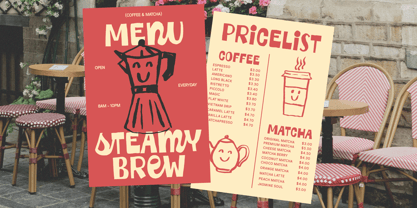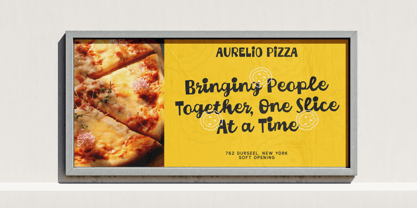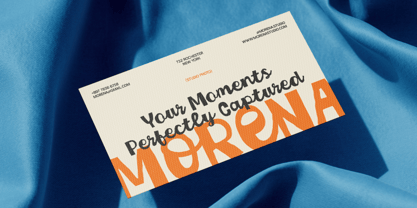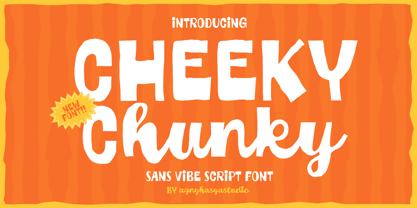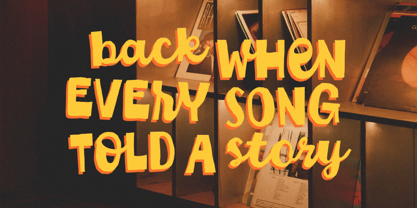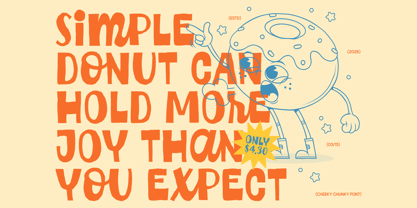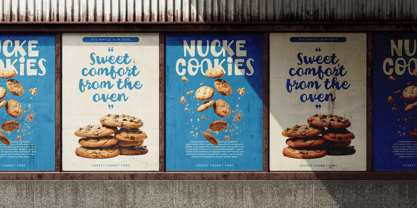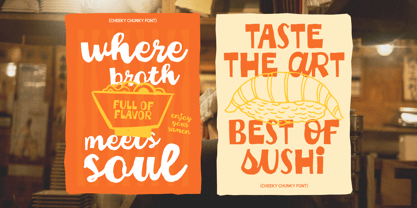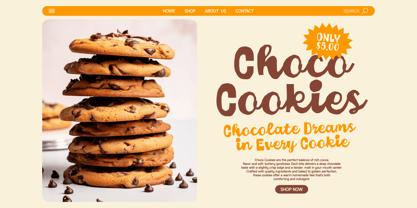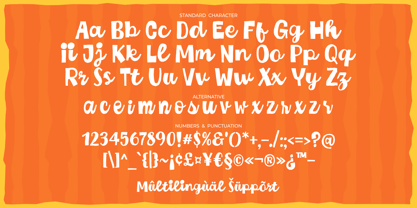
Cheeky Chunky
La famille de polices Cheeky Chunky a été conçue par Firman Maulana et publiée par Agny Hasya Studio. Cheeky Chunky contient 1 styles. En savoir plus sur cette famille
Cheeky Chunky is a playful duo font that combines bold, chunky uppercase sans letters with a lively, handmade lowercase script. Designed to bring fun, warmth, and personality into your designs, this font delivers a cheerful visual vibe without feeling childish. The contrast between strong sans-serif capitals and expressive script lowercase creates a dynamic and flexible typographic system, perfect for eye-catching headlines, logos, packaging, and modern branding projects. With its chunky shapes and friendly curves, Cheeky Chunky feels energetic, approachable, and full of character. Whether you’re working on food branding, social media graphics, posters, or product designs, Cheeky Chunky helps your message stand out with confidence and charm. Thanks for taking a look! If you have any questions or need help, don’t hesitate to reach out. Warm regards, agnyhasyastudio